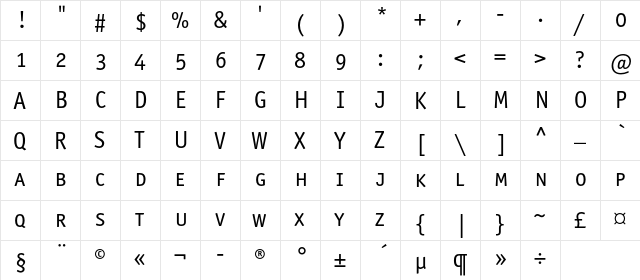
OfficinaSansBookSCC Regular
Design Context for OfficinaSansBookSCC Typeface
OfficinaSansBookSCC takes a measured approach to typography — its balanced proportions and neutral character make it a reliable workhorse for both digital and print work.